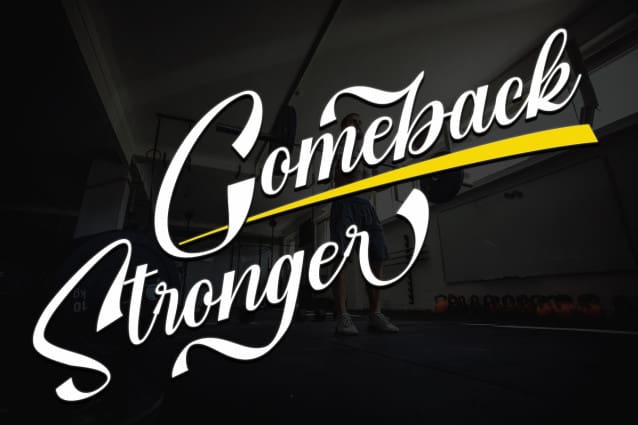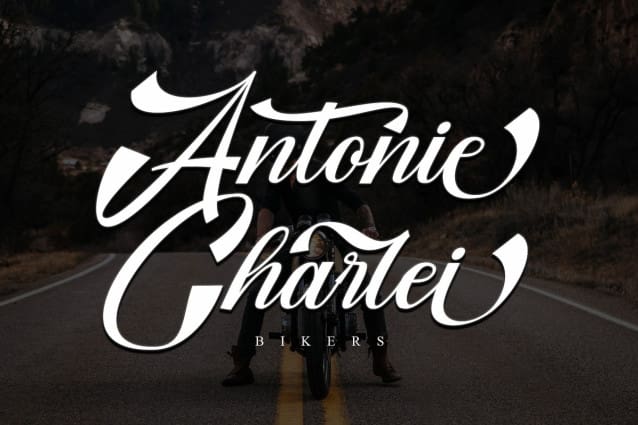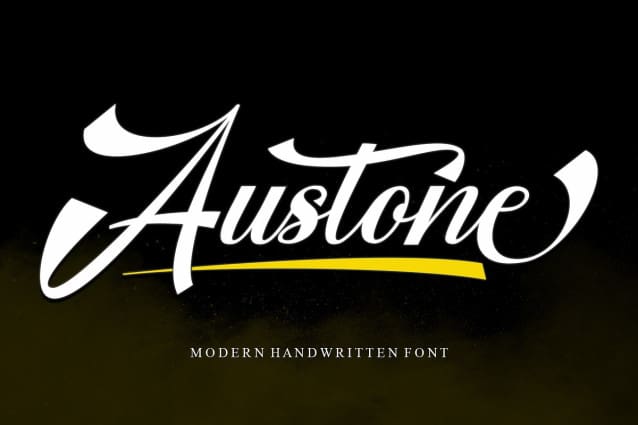
Austone Font
Austone Font, a sophisticately modern, handwritten font. Showcasing artistically unique swashes, austone has the power to effortlessly infuse elegance into your diverse designs. This extraordinary calligraphy brings a timeless ethos that captures the imagination, making it ideal for adding a touch to your creative ventures.